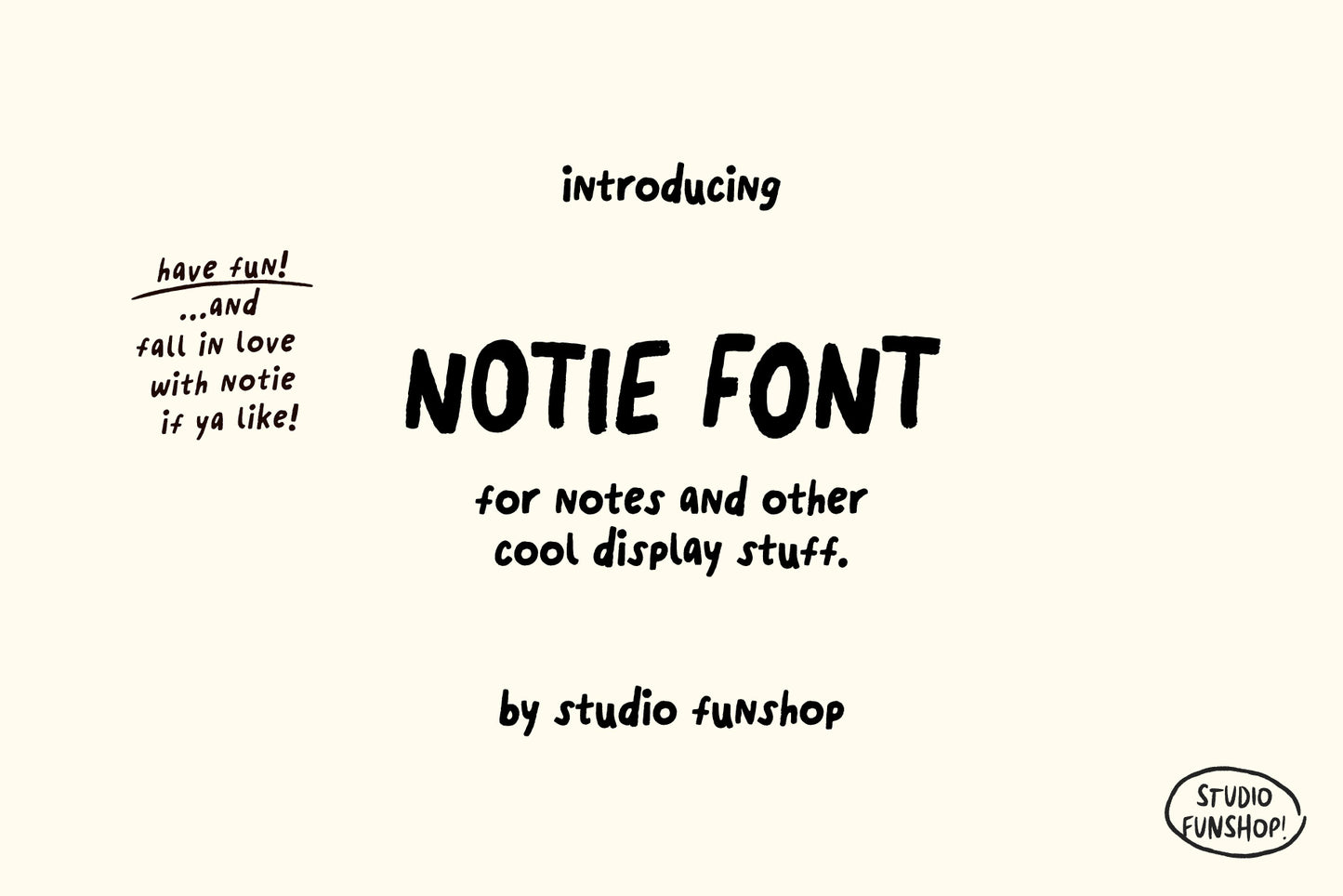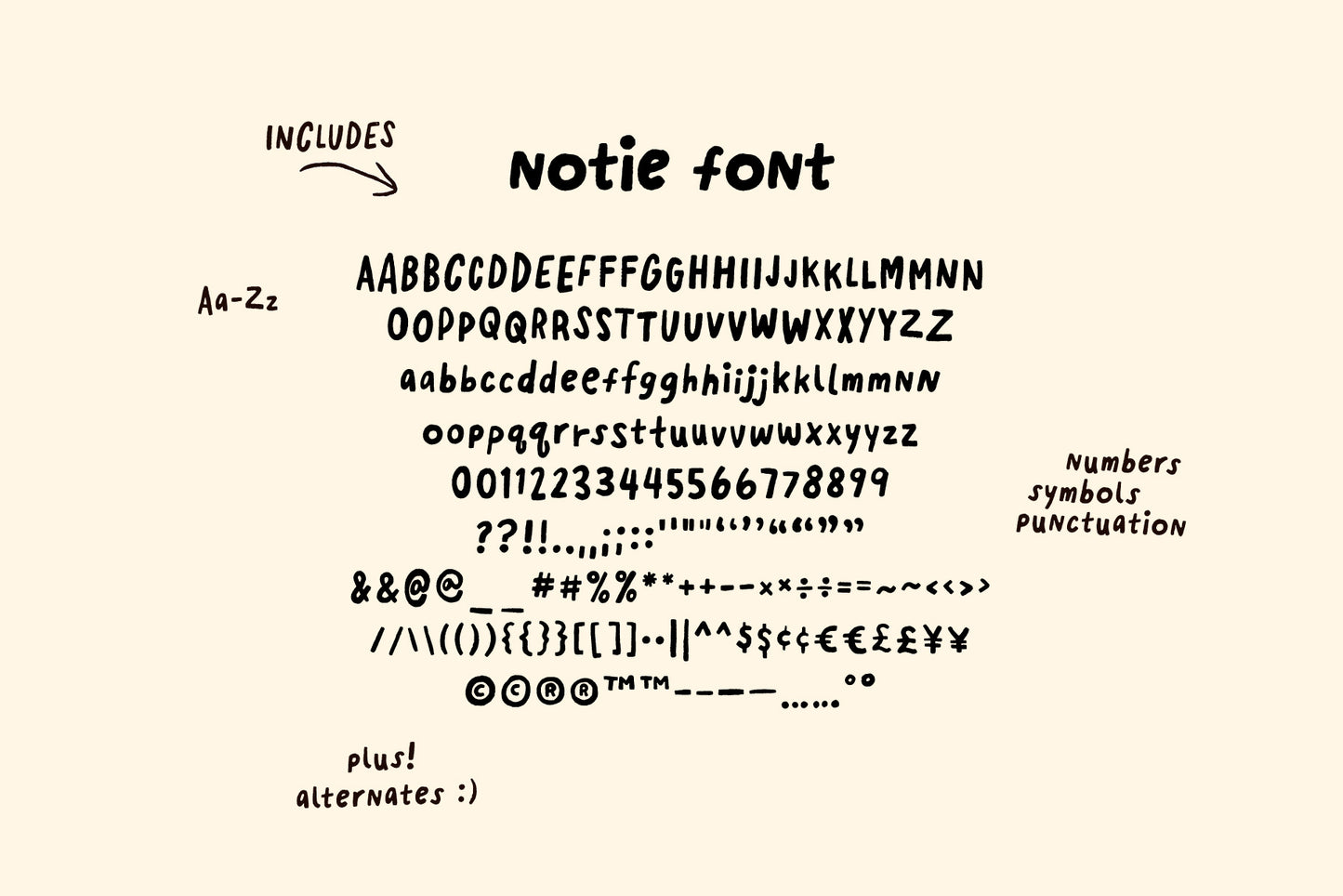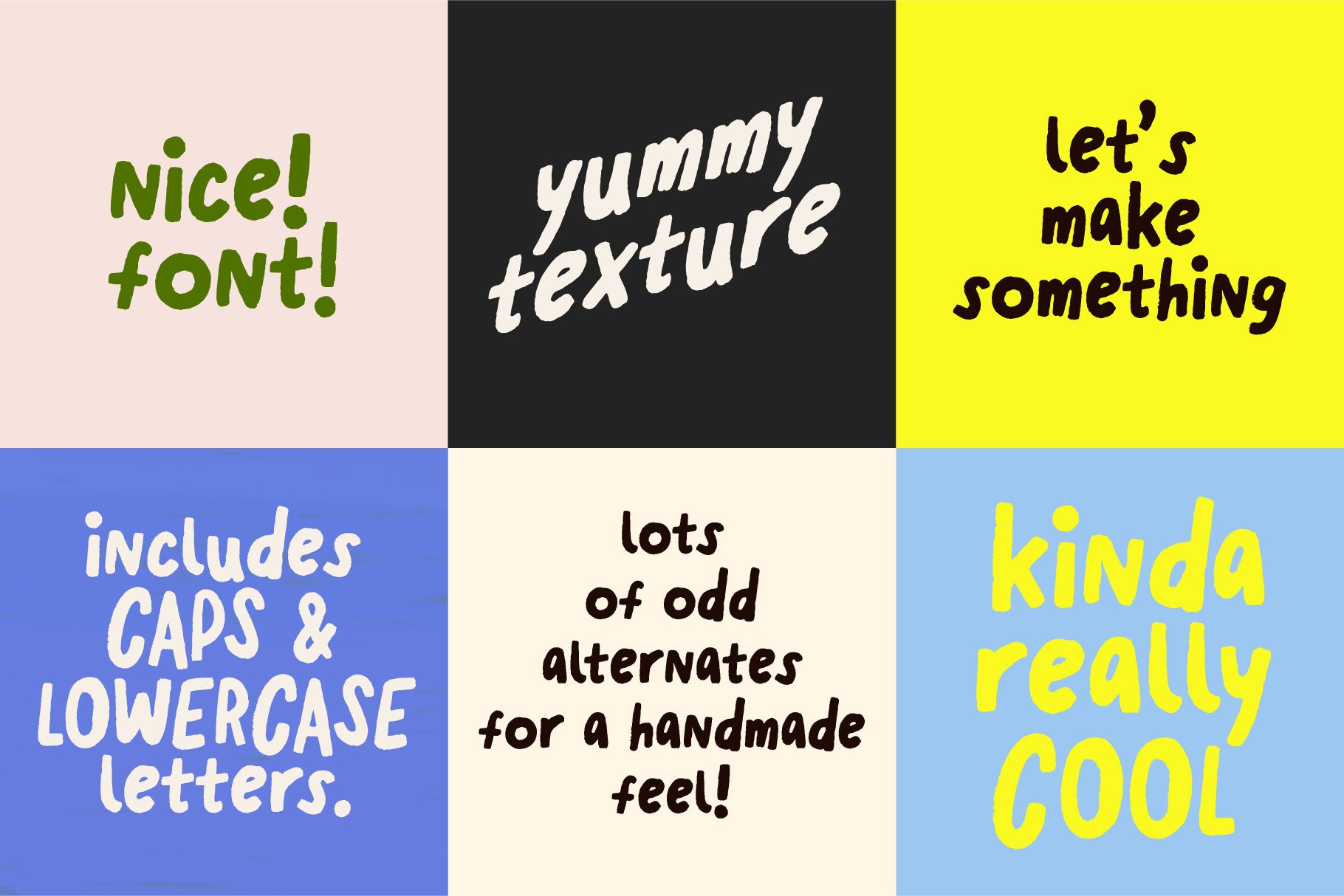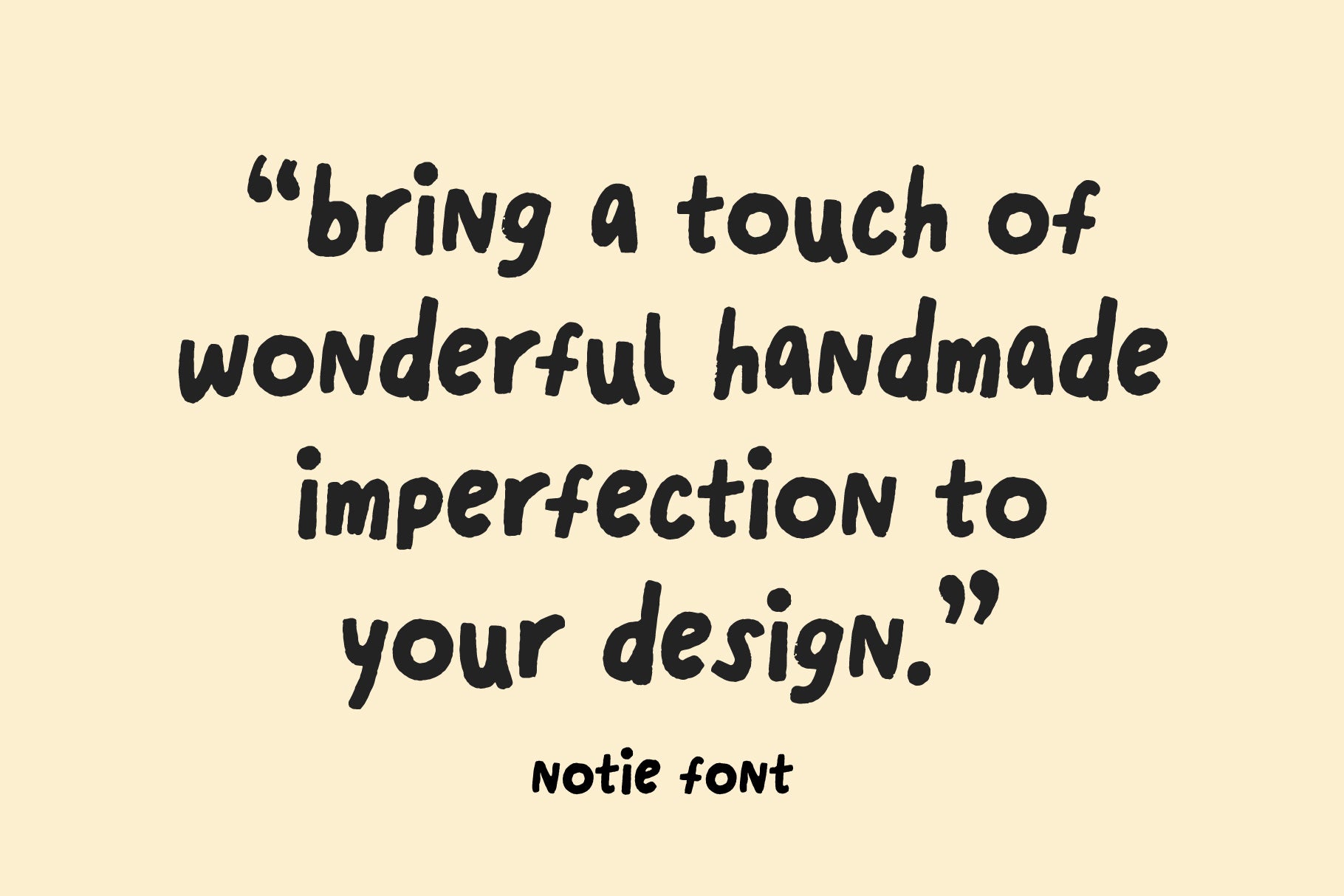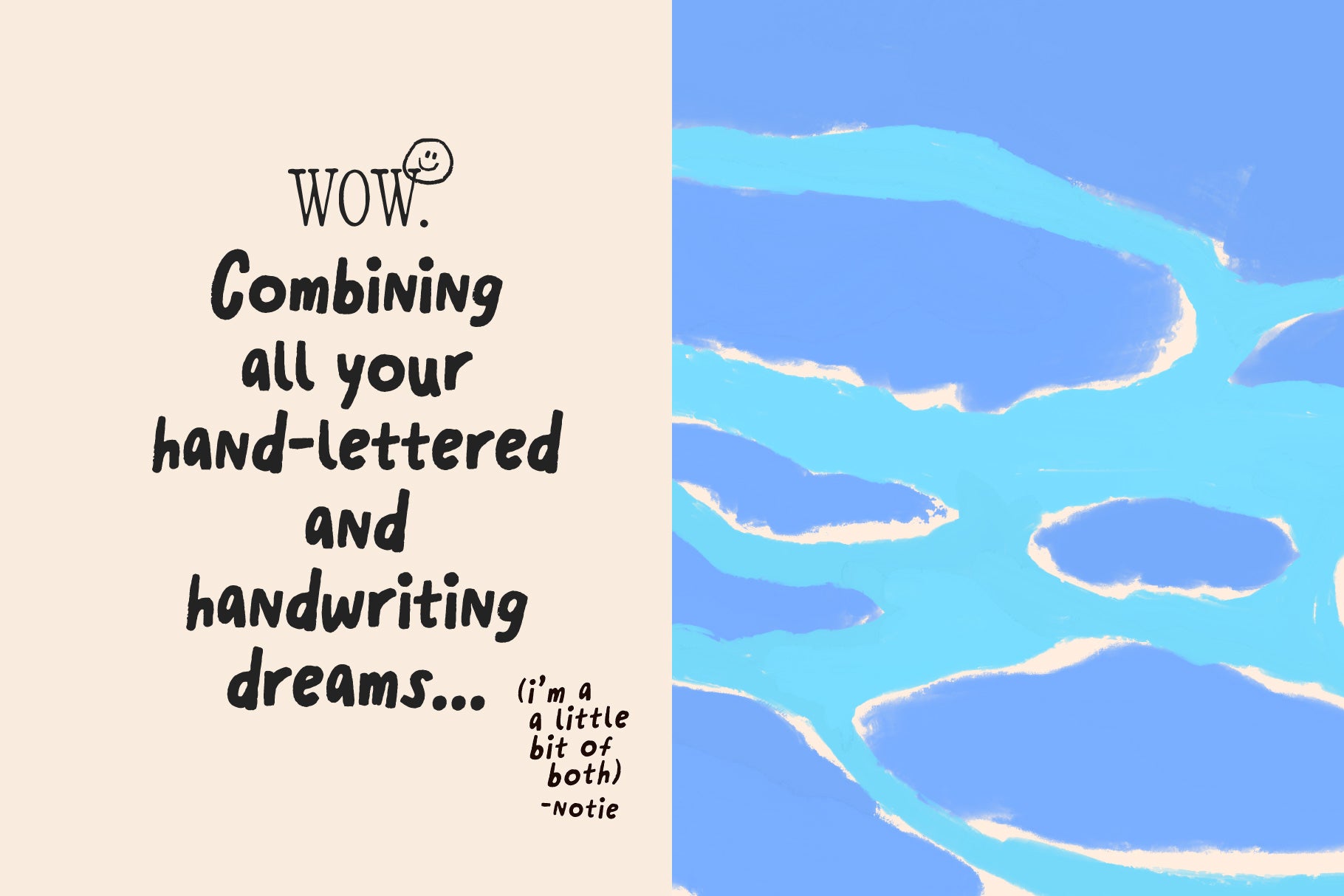
Notie - A Handwriting Font
A nice handwriting font for notes and other cool display stuff. Annotate, make a headline, add some pizzazz, or whatever you please with this freshly made, texture-rich font.
Plus, Notie includes alternates for extra handmade goodness!
Also great for logos, quotes, art, branding and more! Enjoy!
What's in the font? Uppercase and Lowercase Aa-Zz! Numbers! Symbols! Punctuation! Alternates! (see slides!)